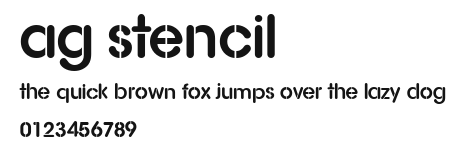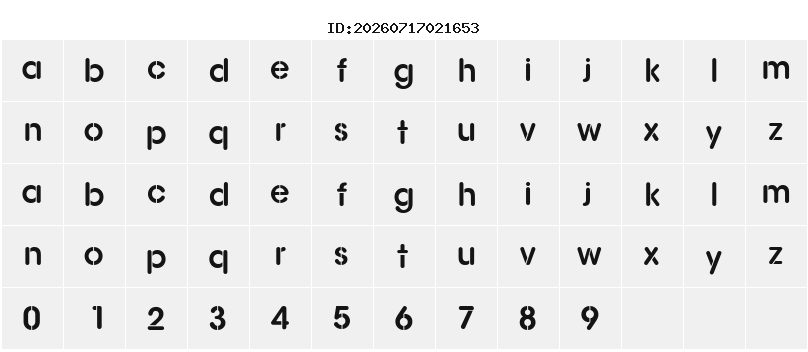
AG Stencil Preview
• Font Name: AG Stencil
• Full Font Name: AG Stencil
• Designer: yong // oneonezero
• Manufacturer: AG Stencil is a registered trademark of ONEONEZERO
About AG Stencil.ttf
AG Stencil.ttf is a modern, elegant sans-serif font designed for ultimate readability and visual harmony. Perfect for branding, headlines, web design, and print materials.